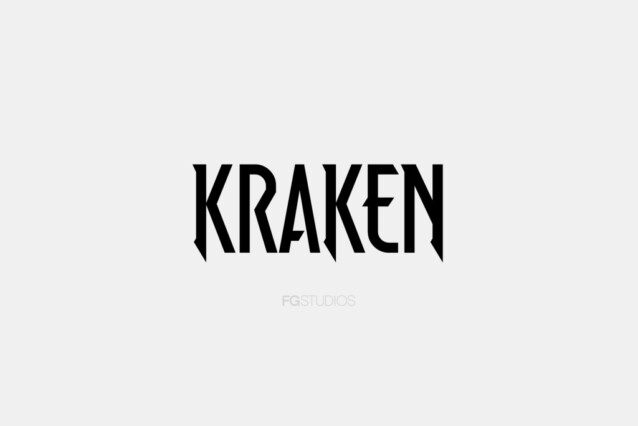
Kraken Font
Kraken Font is a display font that is inspired by gothic and horror themes. Made from font designer named FG Studios. Ready to use for your design like labeling, clothing, movie sceen, poster, movie title, gigs, album covers, logos, and much more.